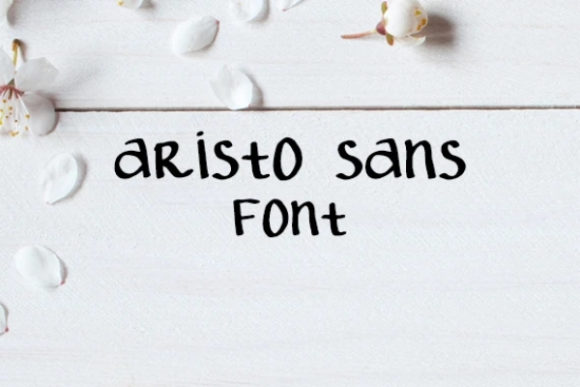
The Aristo Font: A Cute and Casual Sans Serif for Your Designs
An Honest Review of Aristo Font
What I Love About Aristo Font
- ✨ Cute and casual vibe: Aristo font has an undeniably clean feel that makes it perfect for both formal and non-formal designs.
- ✅ Neat and beautiful arrangement of letters: The font’s sans serif design makes it easy to read and understand.
- 💡 Versatile: Aristo font can be used for a wide range of projects, from children’s books to branding and advertising.
While Aristo font is an excellent choice, there are a few things to keep in mind:
- 🤔 Limited availability of OpenType features: Aristo font does not have a wide range of OpenType features, which may limit its use in certain designs.
- ⚠️ May not be suitable for body text: Due to its clean and simple design, Aristo font may not be the best choice for large blocks of body text.
The Backstory of Aristo Font
The Aristo font was designed with the goal of creating a clean and simple sans serif font that could be used for a wide range of projects. The designer wanted to create a font that was both playful and elegant, making it perfect for designs that require a touch of whimsy.
| What is the Aristo font? | The Aristo font is a cute and casual sans serif font with a clean feel. |
| Is Aristo font suitable for body text? | No, Aristo font may not be the best choice for large blocks of body text due to its clean and simple design. |